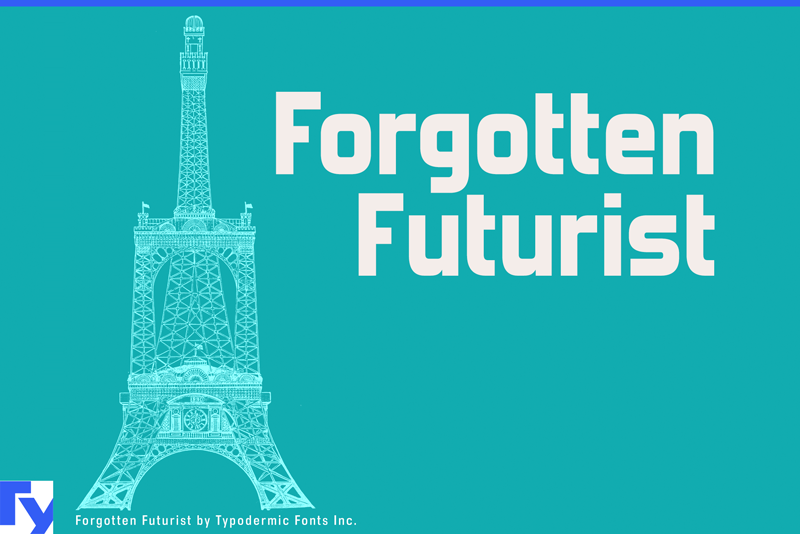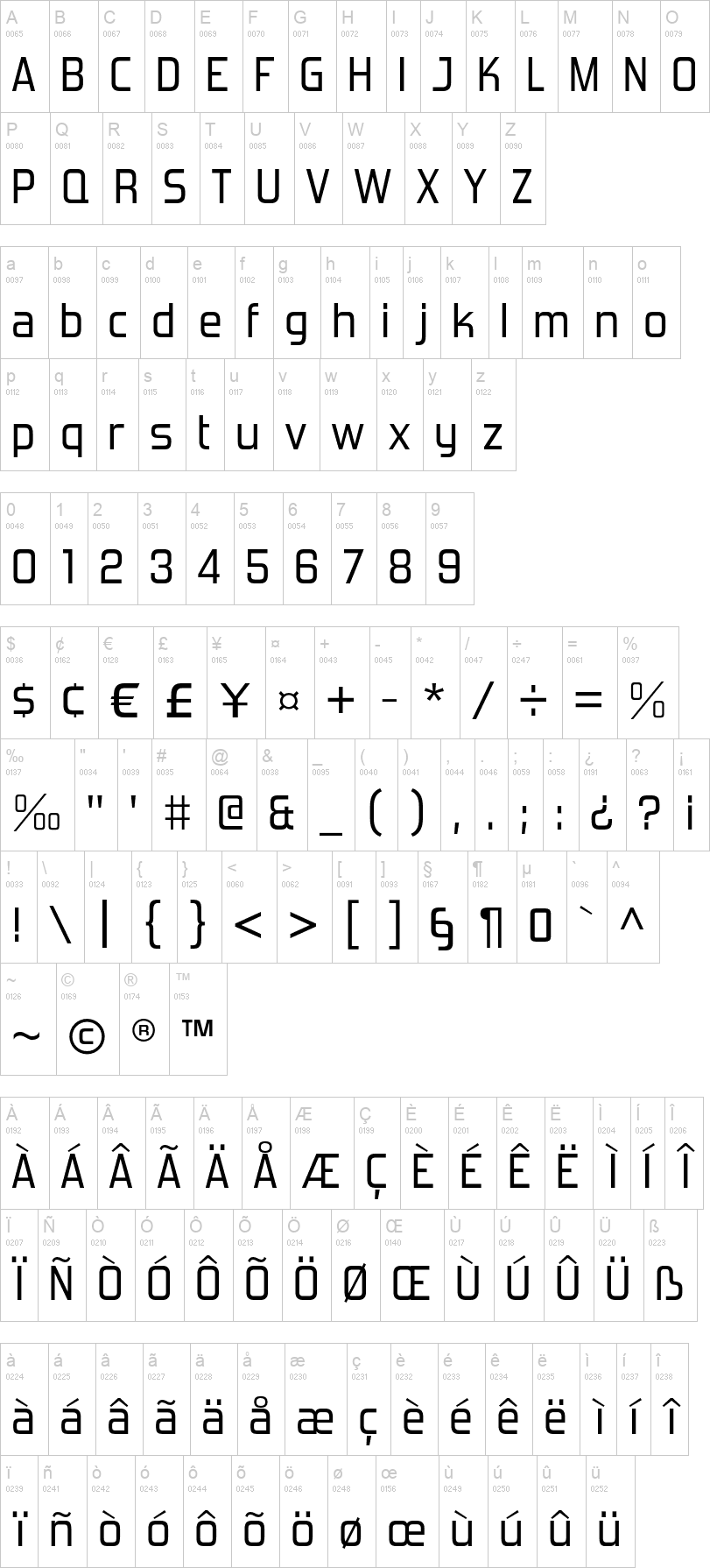
forgotten futurist rg it.otfforgotten futurist bd.otfforgotten futurist bd it.otfNote of the authorForgotten Futurist is an industrial typeface inspired by 1960s and 1970s high-tech logotypes. Its futuristic letterforms and rounded technical corners are timeless classics. Forgotten Futurist is available in the following styles: Ultra-Light, Extra-Light, Light, Book, Regular, Semi-Bold, Bold, Heavy, Black, and italics. Most Latin-based European writing systems are supported, including the following languages. Afaan Oromo, Afar, Afrikaans, Albanian, Alsatian, Aromanian, Aymara, Bashkir (Latin), Basque, Belarusian (Latin), Bemba, Bikol, Bosnian, Breton, Cape Verdean, Creole, Catalan, Cebuano, Chamorro, Chavacano, Chichewa, Crimean Tatar (Latin), Croatian, Czech, Danish, Dawan, Dholuo, Dutch, English, Estonian, Faroese, Fijian, Filipino, Finnish, French, Frisian, Friulian, Gagauz (Latin), Galician, Ganda, Genoese, German, Greenlandic, Guadeloupean Creole, Haitian Creole, Hawaiian, Hiligaynon, Hungarian, Icelandic, Ilocano, Indonesian, Irish, Italian, Jamaican, Kaqchikel, Karakalpak (Latin), Kashubian, Kikongo, Kinyarwanda, Kirundi, Kurdish (Latin), Latvian, Lithuanian, Lombard, Low Saxon, Luxembourgish, Maasai, Makhuwa, Malay, Maltese, Māori, Moldovan, Montenegrin, Ndebele, Neapolitan, Norwegian, Novial, Occitan, Ossetian (Latin), Papiamento, Piedmontese, Polish, Portuguese, Quechua, Rarotongan, Romanian, Romansh, Sami, Sango, Saramaccan, Sardinian, Scottish Gaelic, Serbian (Latin), Shona, Sicilian, Silesian, Slovak, Slovenian, Somali, Sorbian, Sotho, Spanish, Swahili, Swazi, Swedish, Tagalog, Tahitian, Tetum, Tongan, Tshiluba, Tsonga, Tswana, Tumbuka, Turkish, Turkmen (Latin), Tuvaluan, Uzbek (Latin), Venetian, Vepsian, Võro, Walloon, Waray-Waray, Wayuu, Welsh, Wolof, Xhosa, Yapese, Zapotec Zulu and Zuni.